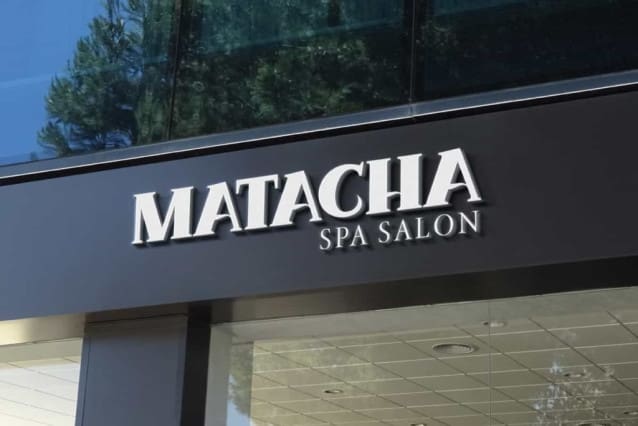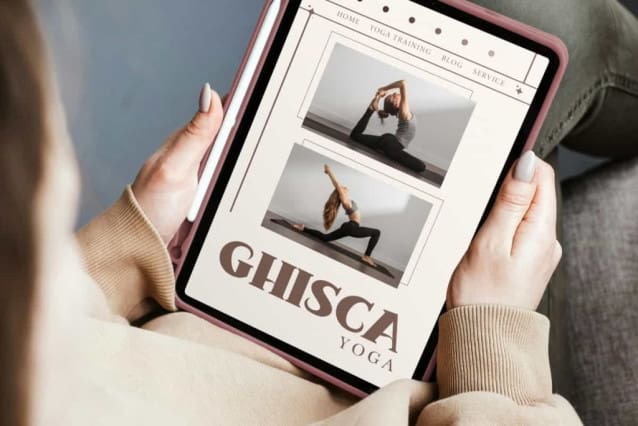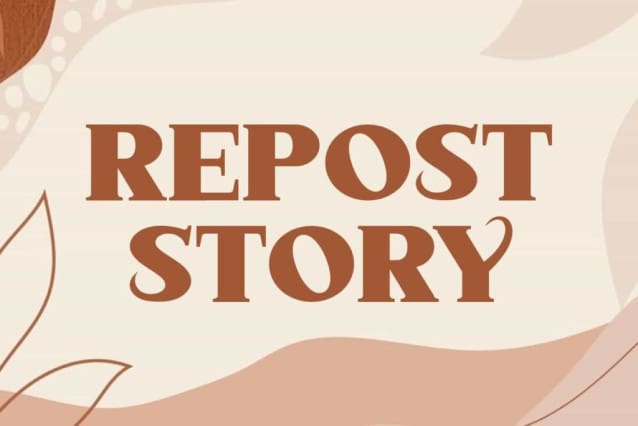
Repost Story Font
Repost Story Font is a unique and elegant serif display font for branding and logo design. This font is suitable for branding, headline, invitation, magazine cover, menu, poster, product packaging, screen printing, signage, social media post, stationery, sticker, website and more!
Repost Story Font includes full set of ALL CAPS for Uppercase and Lowercase Basic Characters, Numbers, Punctuation and Symbols. This font has a simple and minimalist impression so that it is suitable for advertisements, beauty product, cafeteria, crafts, fashion, photography, restaurant, spa, travel agency, etc.